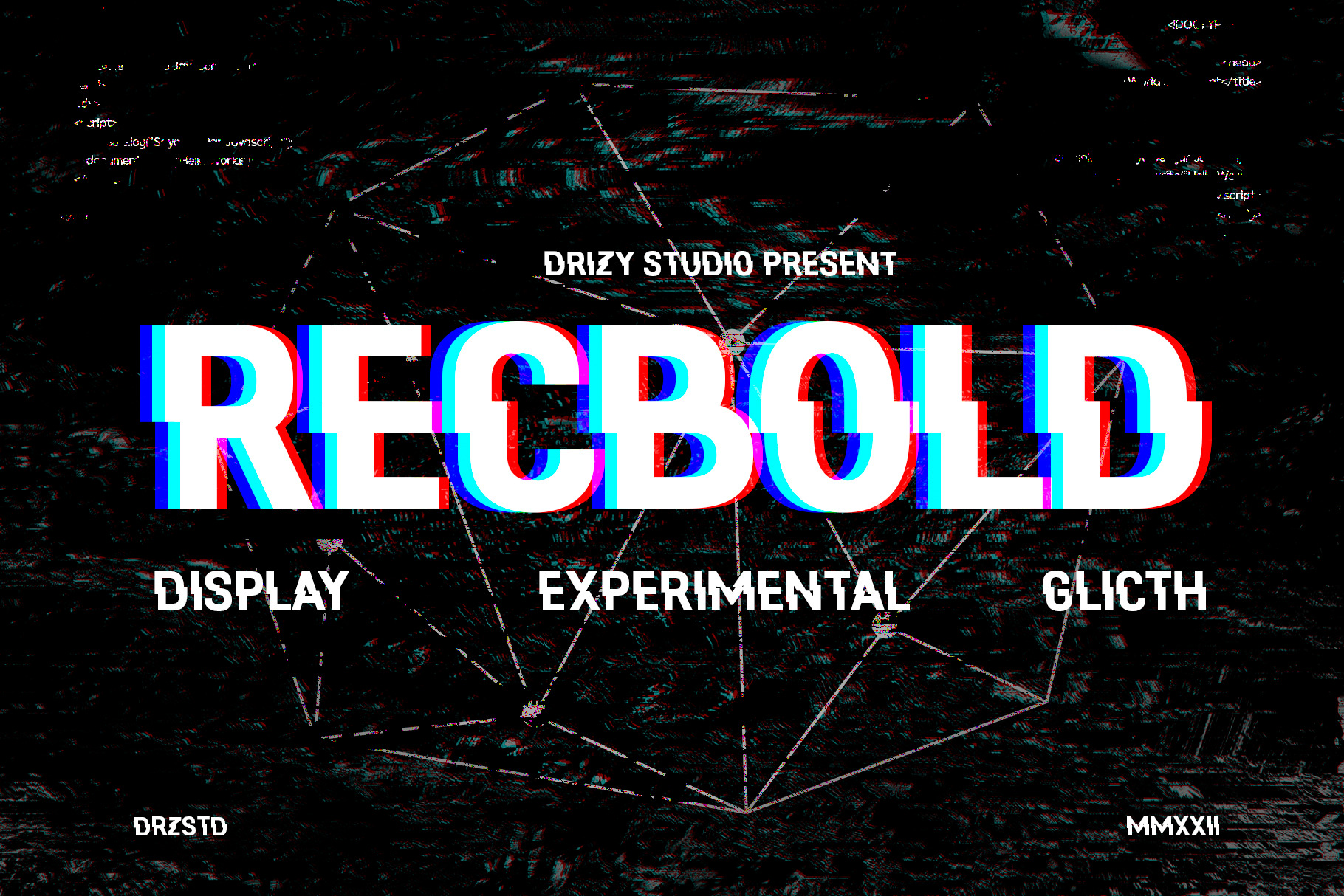
Recbold – Experimental Glitch Font
Recbold – Experimental Glitch Font from Drizy Studio. Offering all the styles you need for experimental and unique of your projects.